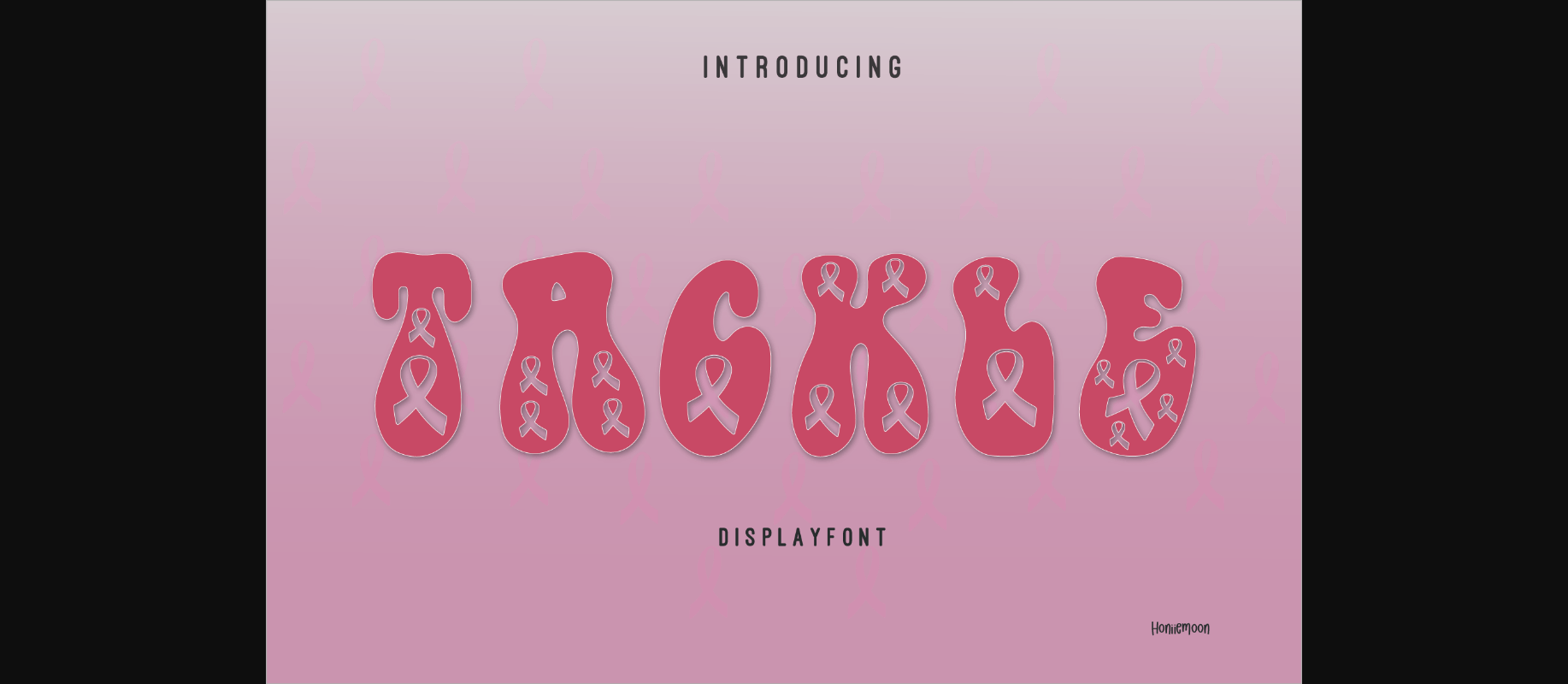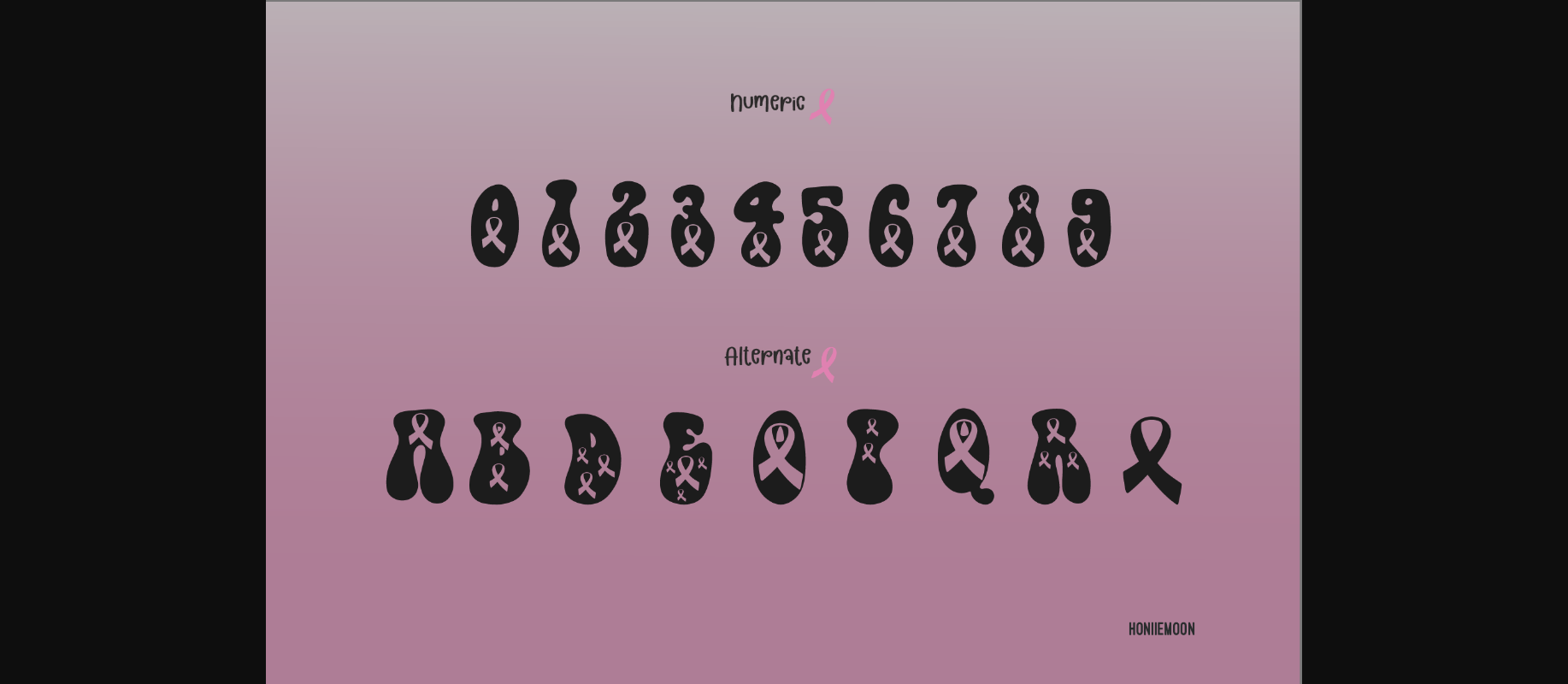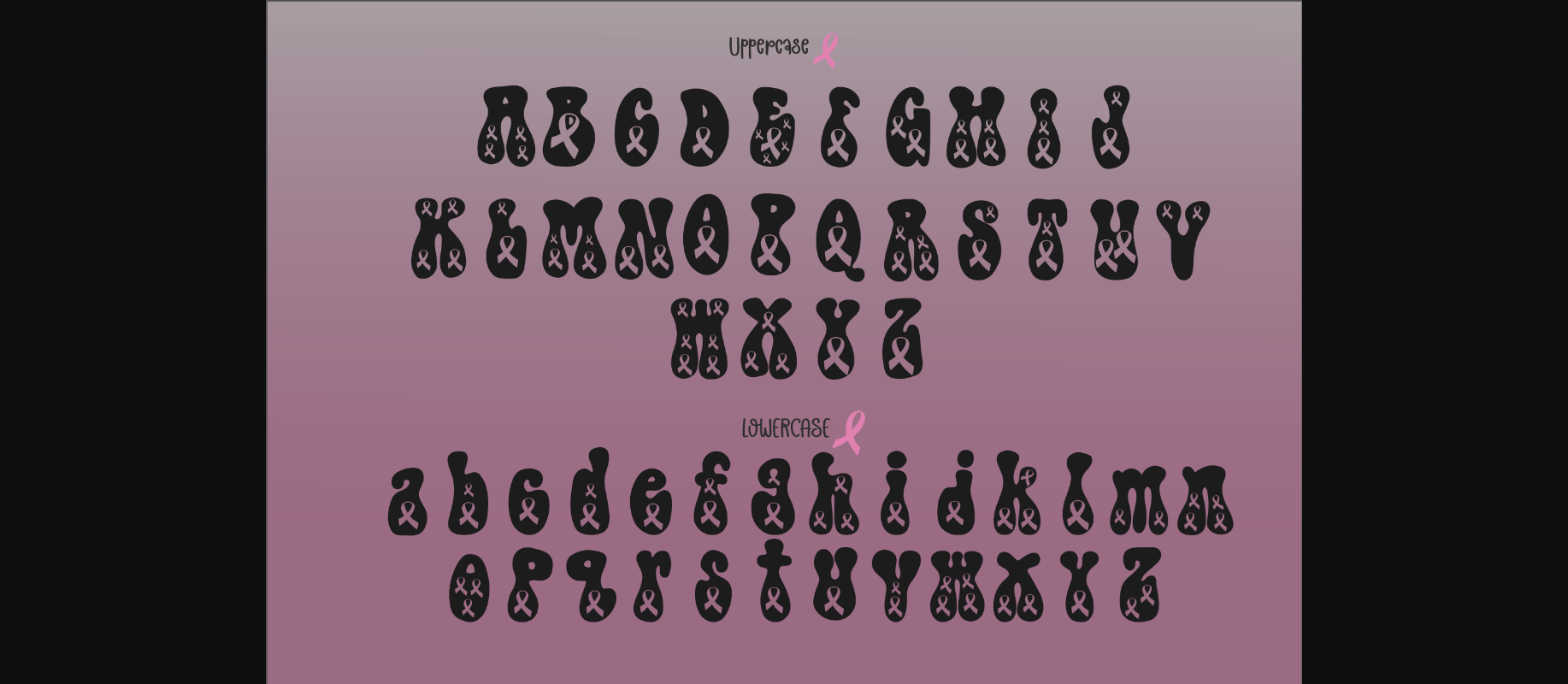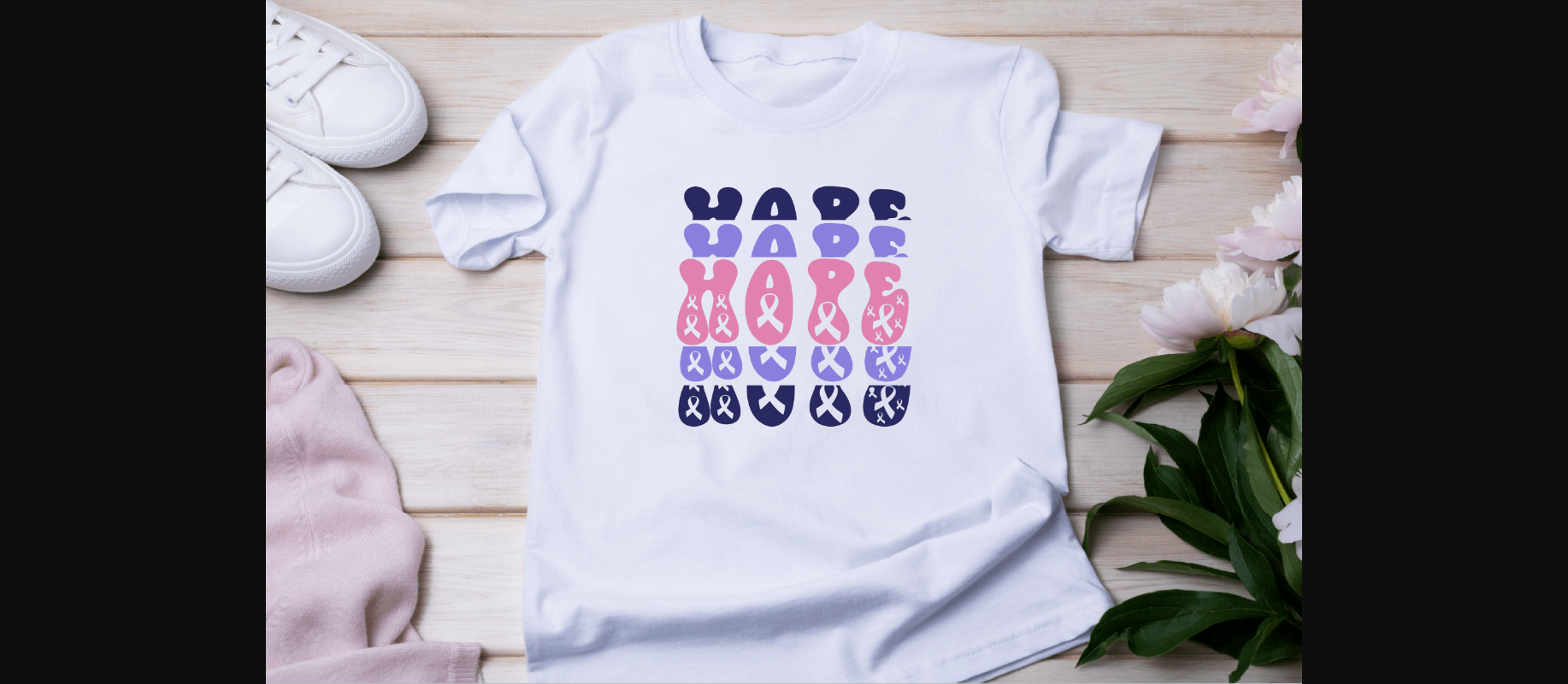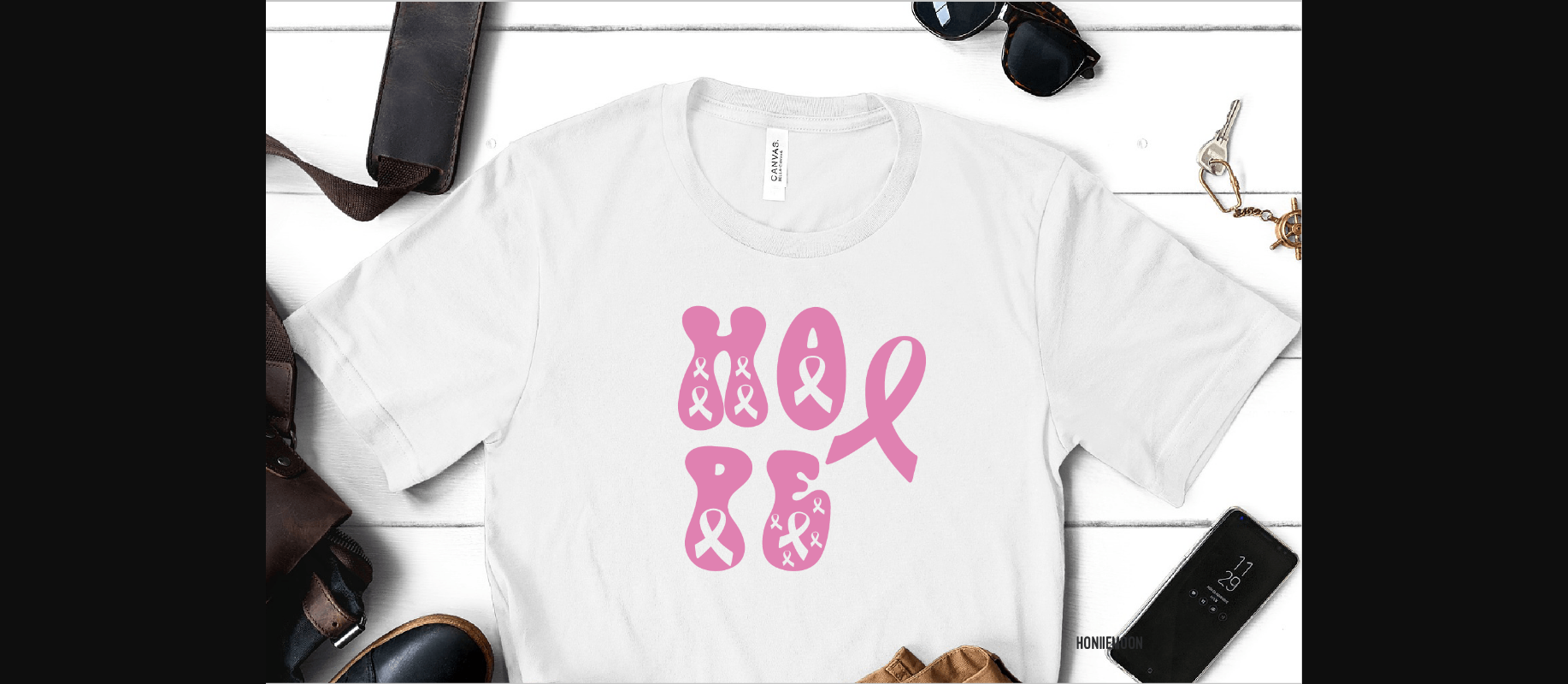
Tackle Font
About Tackle Font
Tackle is a cool and fun decorative font. It looks both cute and jolly and it will enhance each of your designs. The only limit is your imagination. Add this colorful and inspirational font to each of your creative ideas, and notice how it makes them come alive!